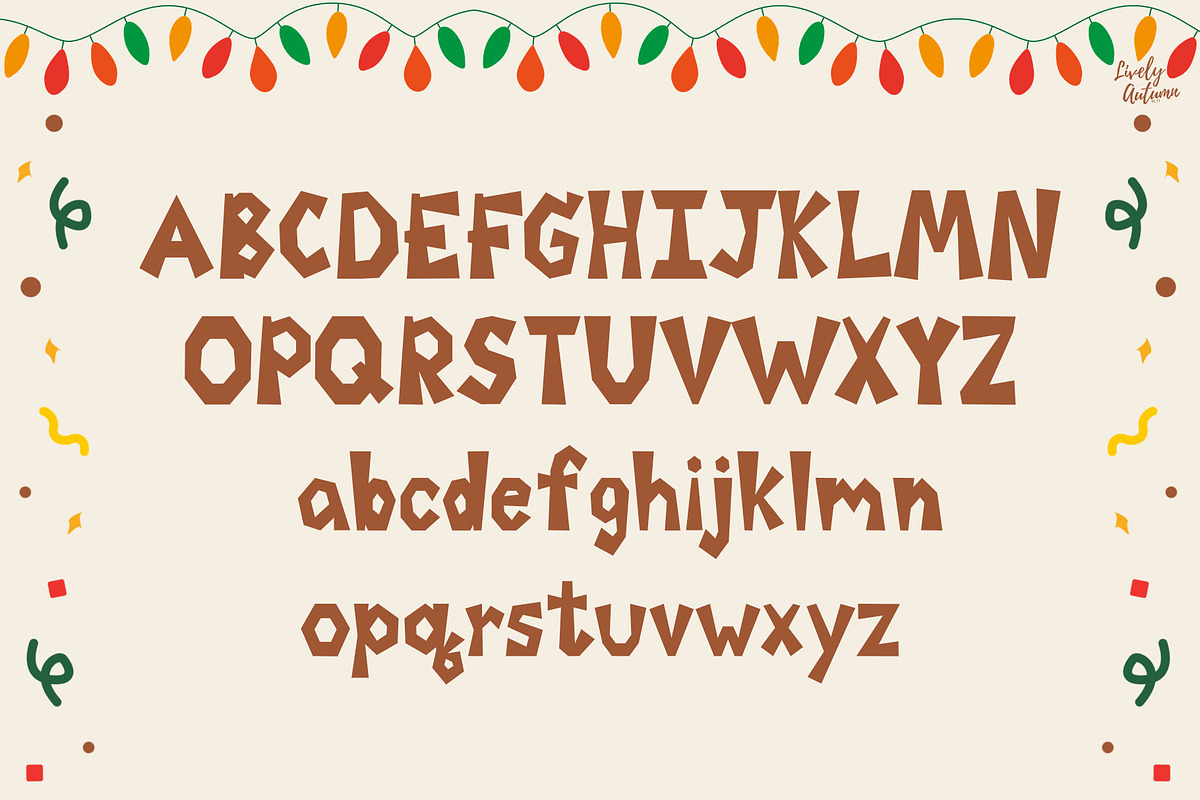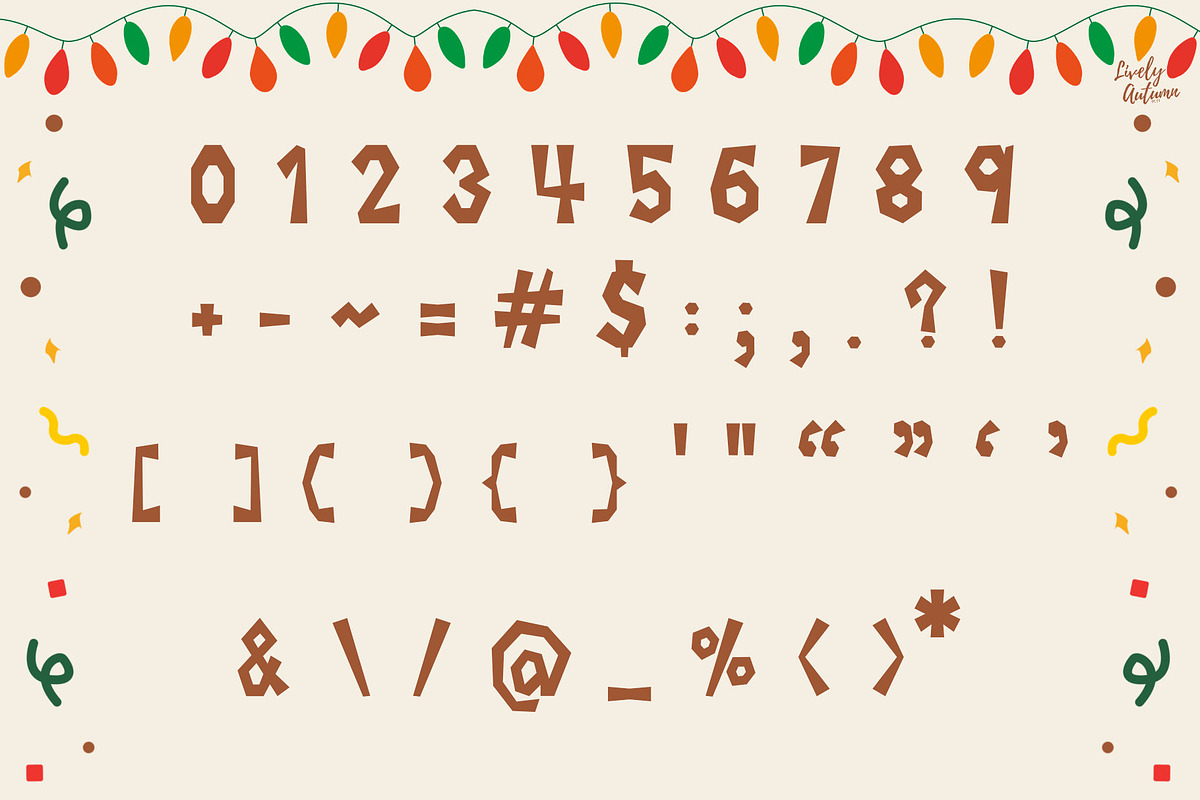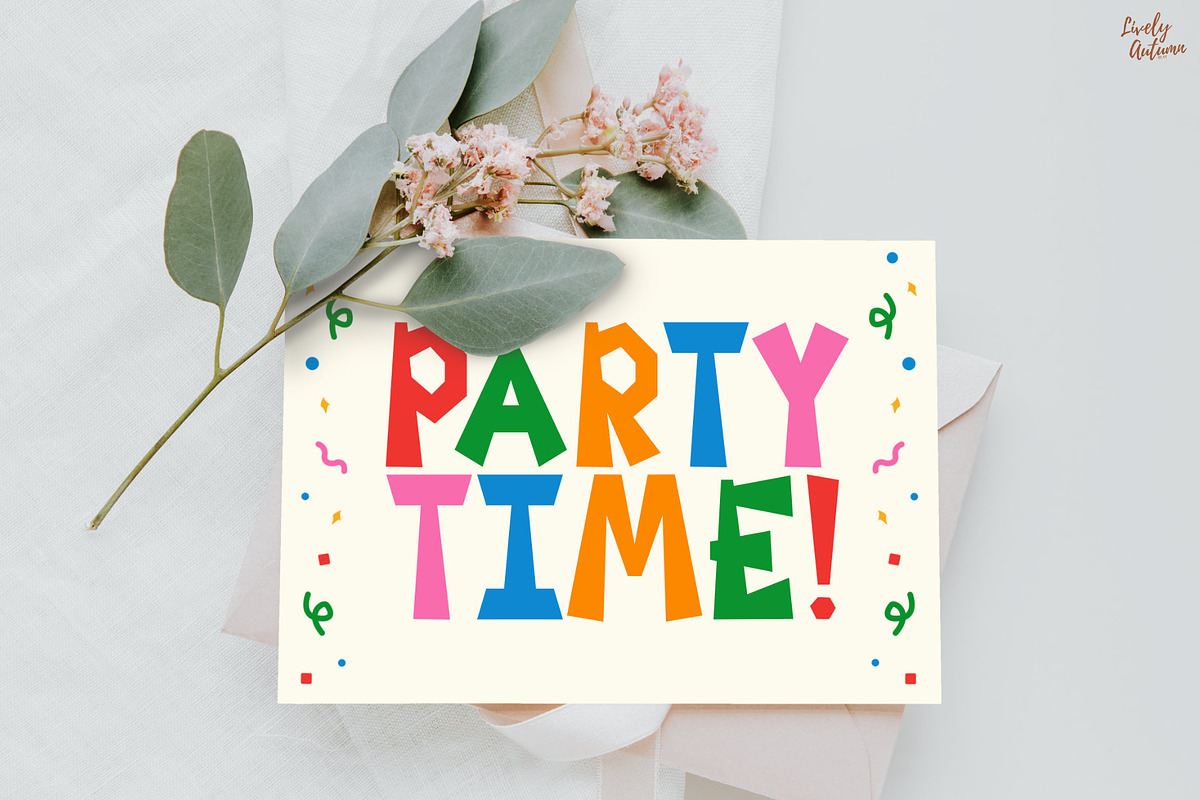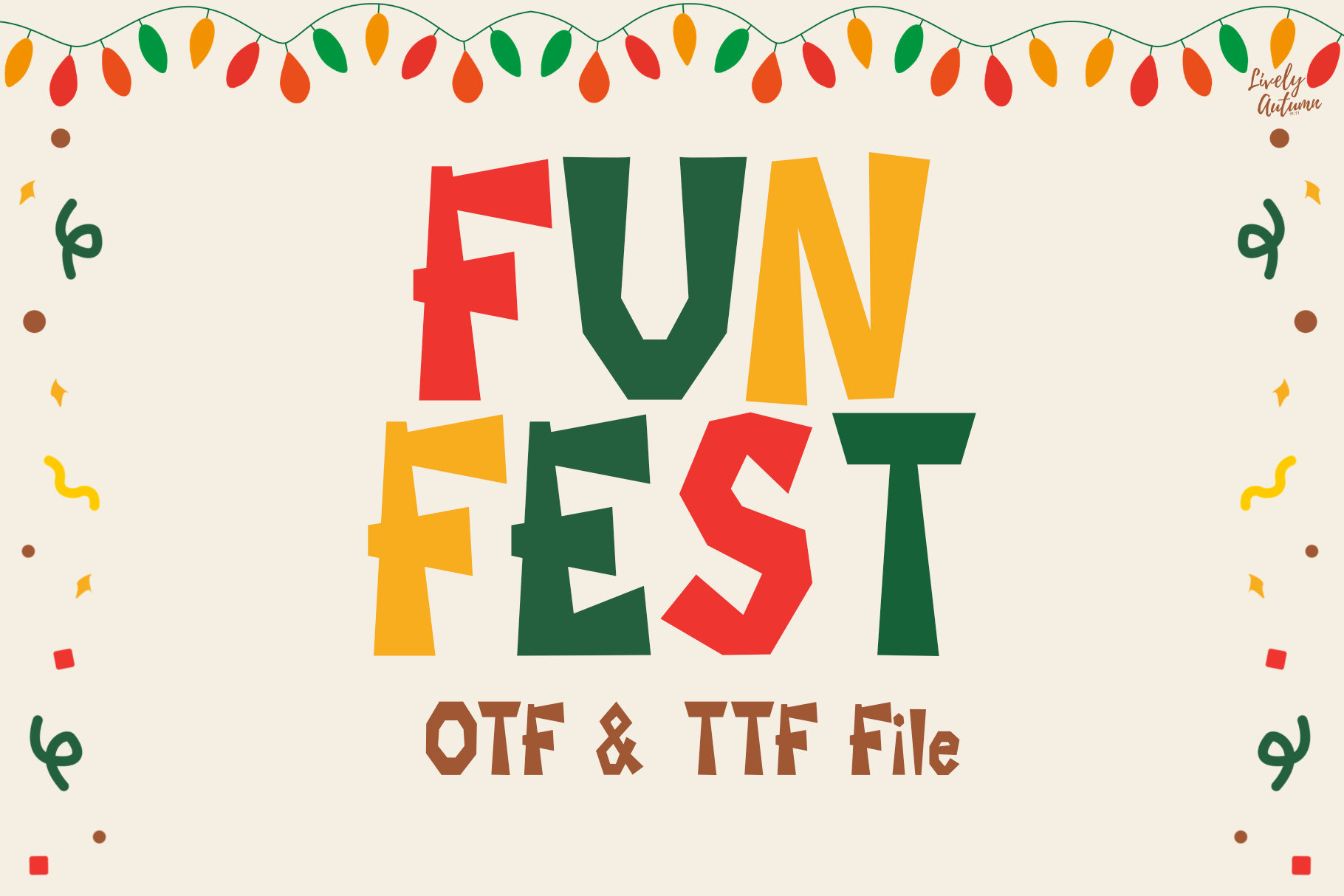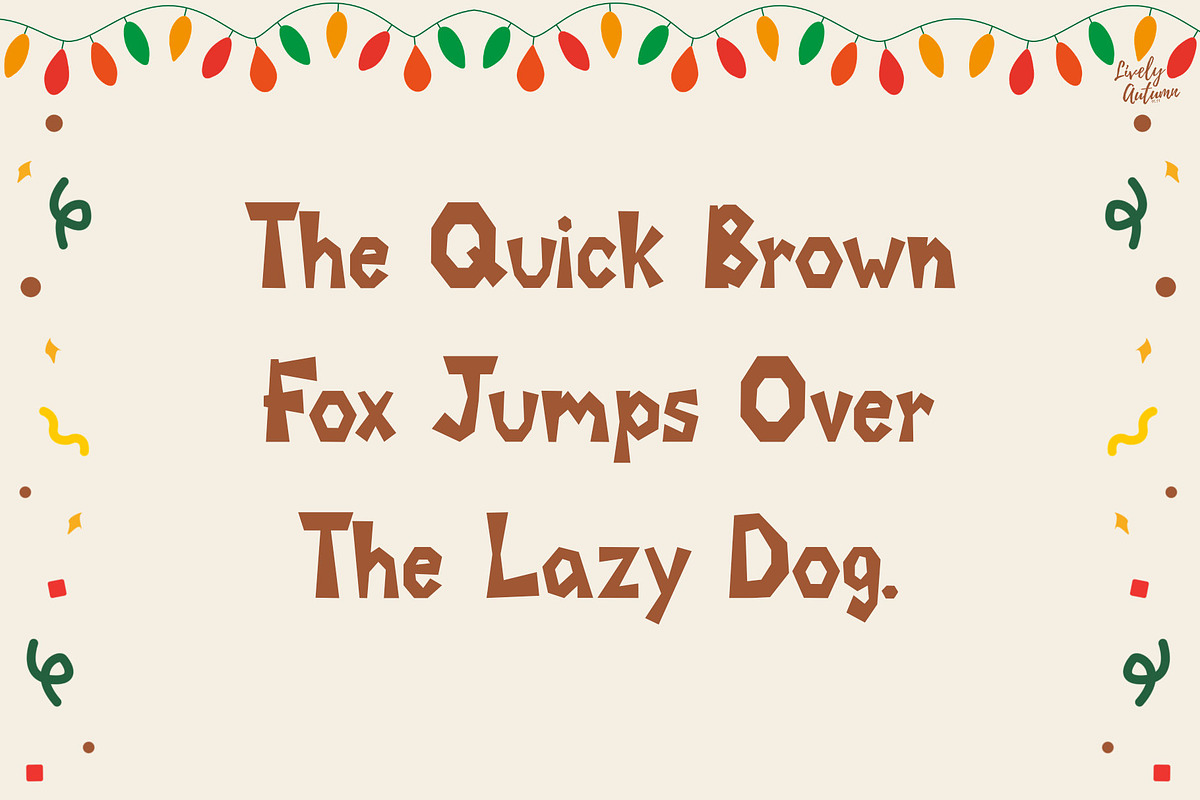
FunFest | Playful Cartoon Font
FunFest Font is a playful, cartoon typeface with sharp edges. Perfect for your personal projects and various projects. From invitations to posters, social media graphics, journals, and much more.